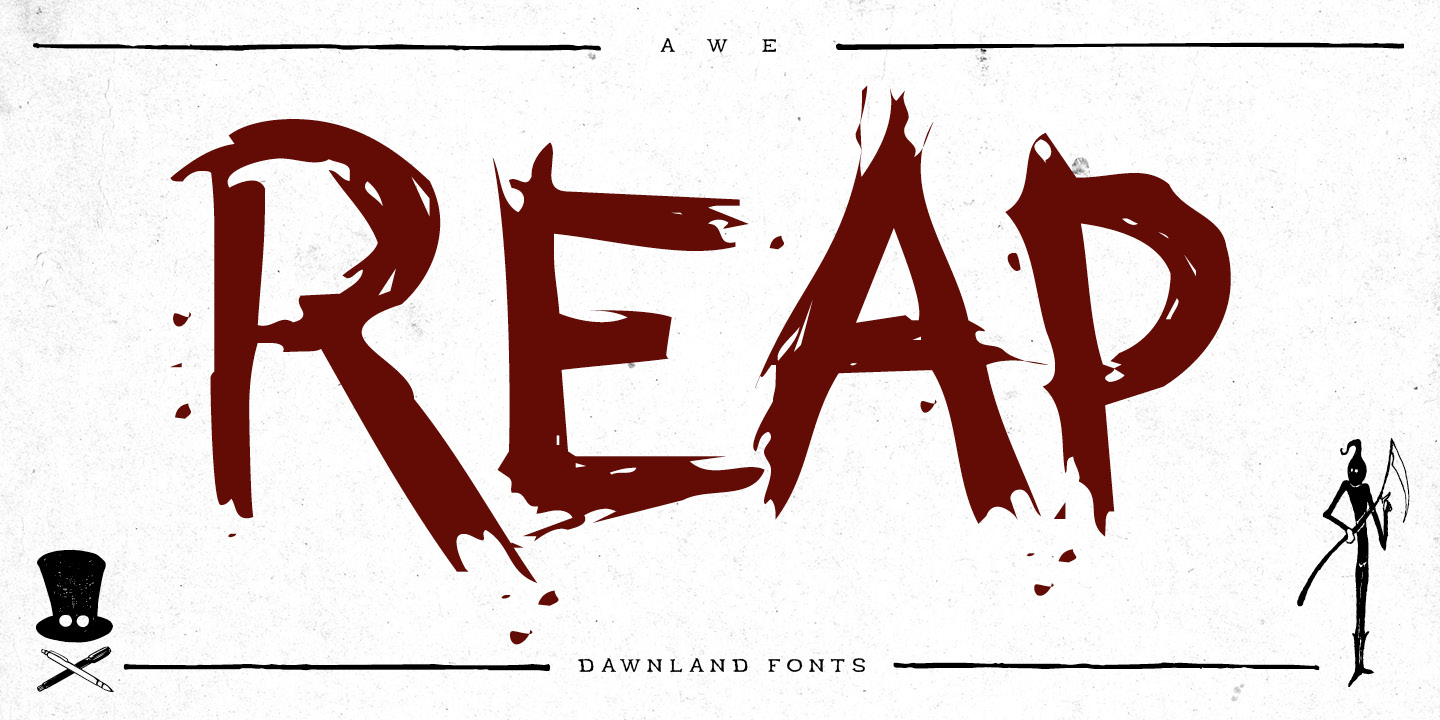
aweX is a grunge and hand display font published by Dawnland.
An awe inspiring nightmarish font for use wherever you need to add unease or fear to your artwork. The main focus and usage of AweX are headlines, posters for event graphics and music/media/game packaging.
AweX was revised 2012 and now hold a full character set of basic english/latin letters and west european diacritics!